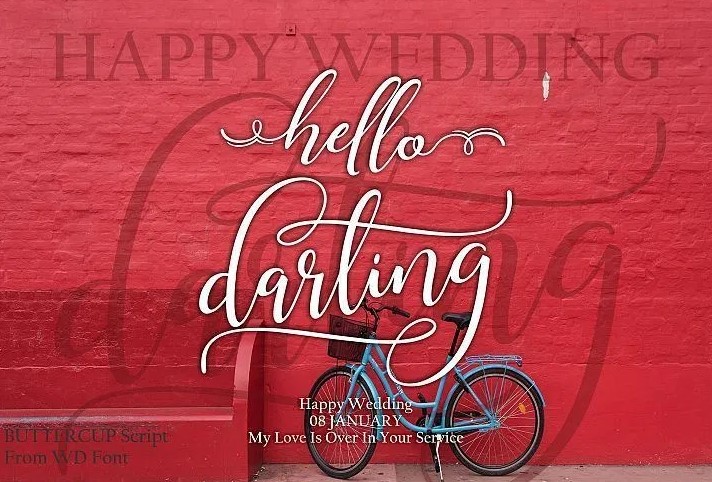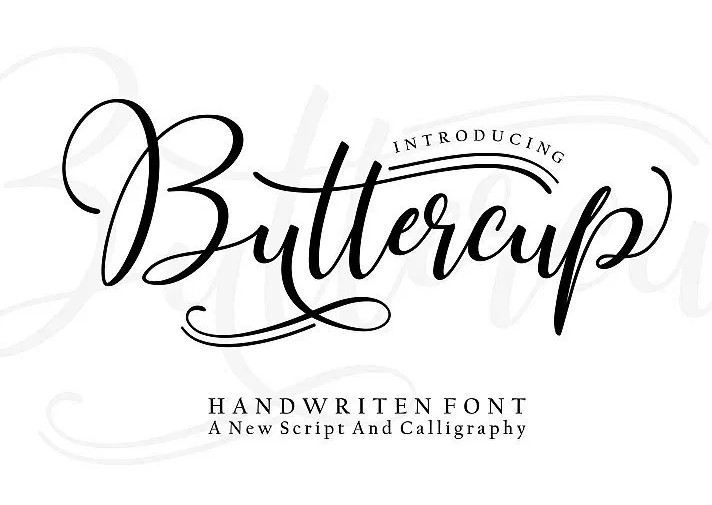
Buttercup Handwritten Font
Buttercup Handwritten Font is an idea for its textual content generator function, without a doubt going to get the pinnacle-notch notion approximately it. A totally famous content fabric creator from gilroy font the all proper reserved for this elegant typeface. And he creates it for monetary rolling stone font gift-day writing and comes. He has taken the concept from which changed into as rapid as launched.
In this way. It has supported approximately 110 varieties of international languages. Buttercup Handwritten Font Free Now that you may able to moreover be referred to as it the winning-day version of the monopoly font. Due to the reality now it has contained the complete historical elements with strength.
The entire letters together with this particular font function pinnacle-notch primarily based completely truly actually in truth format. This typeface is also listed inside the google fonts. That is also known as the magnolia sky font. Download It has availably top-notch in an unmarried massive type but this type has many styles of intro font.
Furthermore, proudly owning the layout. The great a part of that, in fact, so, do now not make any go together with the flow for the use of it on your duties.